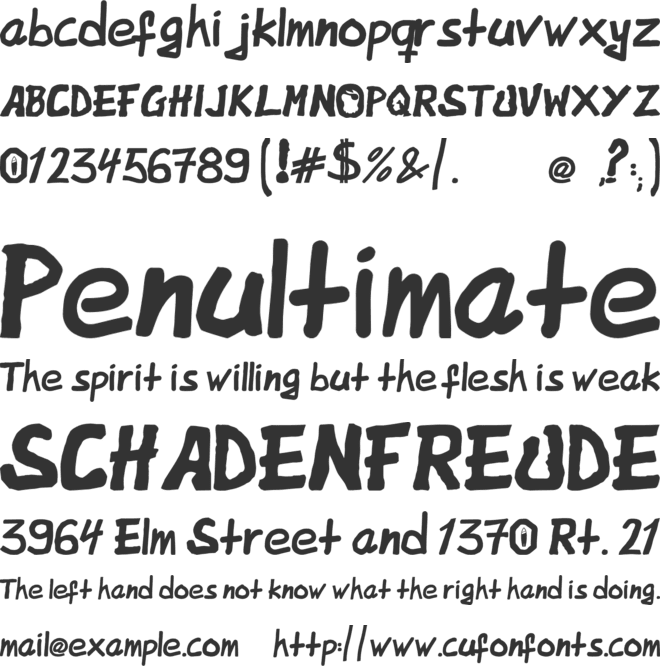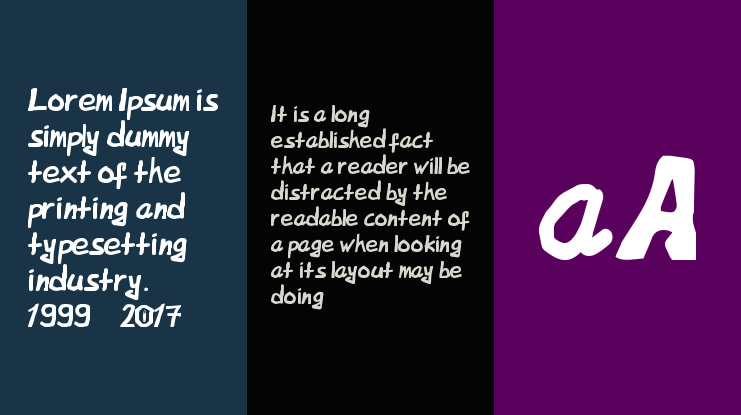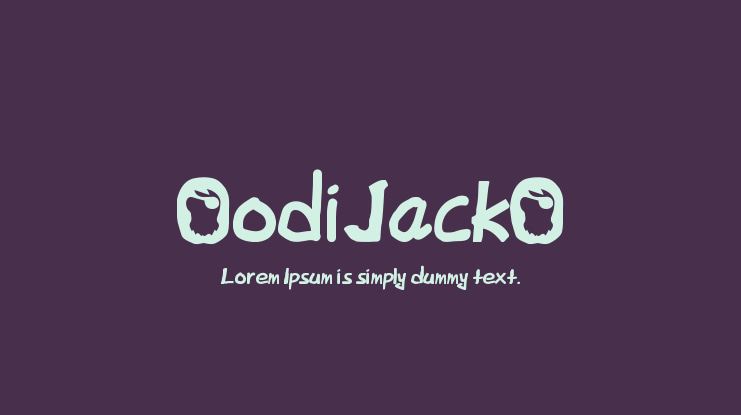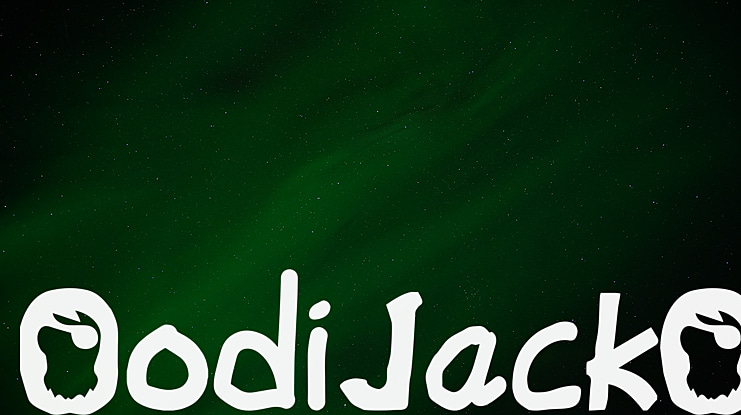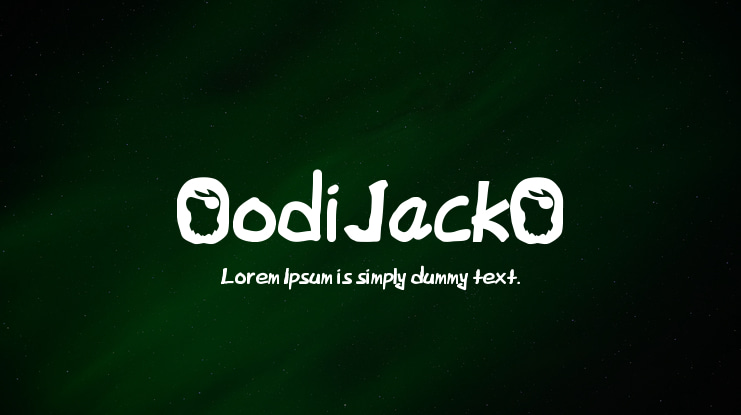
OodiJackO Font
This crazy old school font is ode to Jack O'Neill. Surfer, inventor at the wetsuit, founder of O'neill brand and one hell of a kind business man. This font is suitable for ads and flyers. It comes from Raahe - Finland. Kiitos! :)